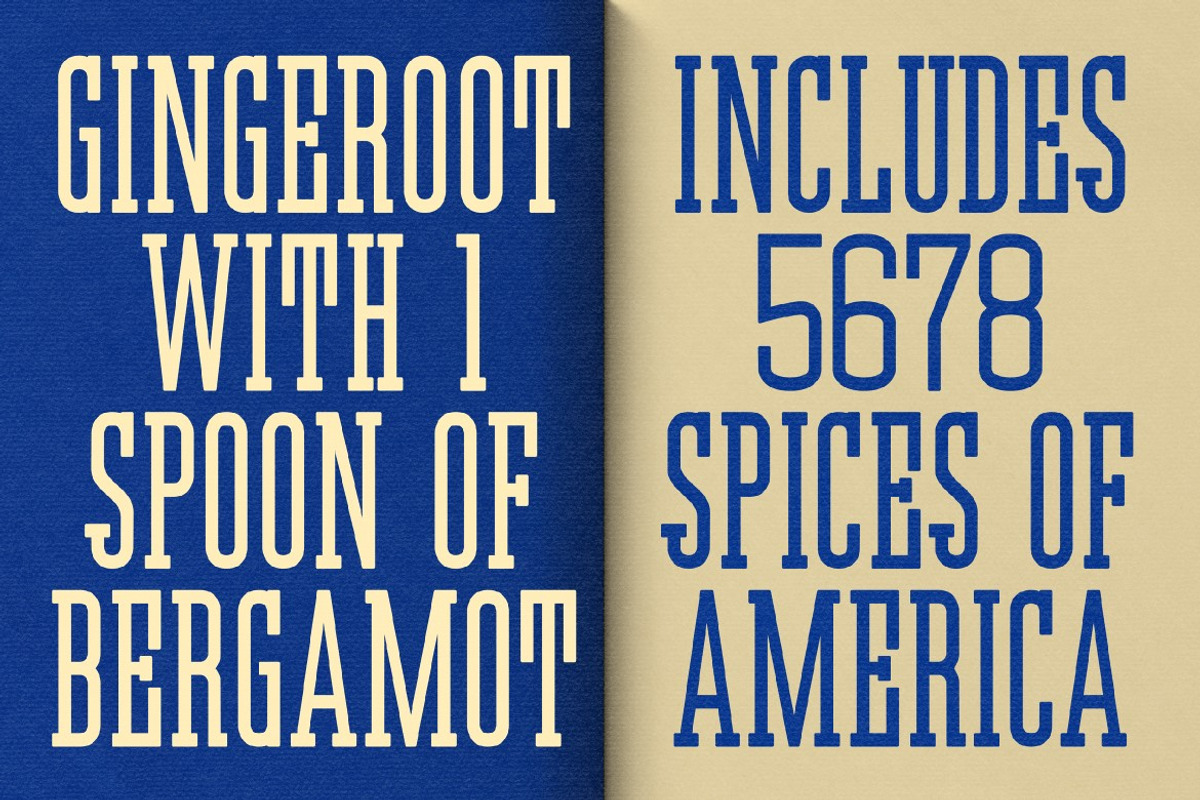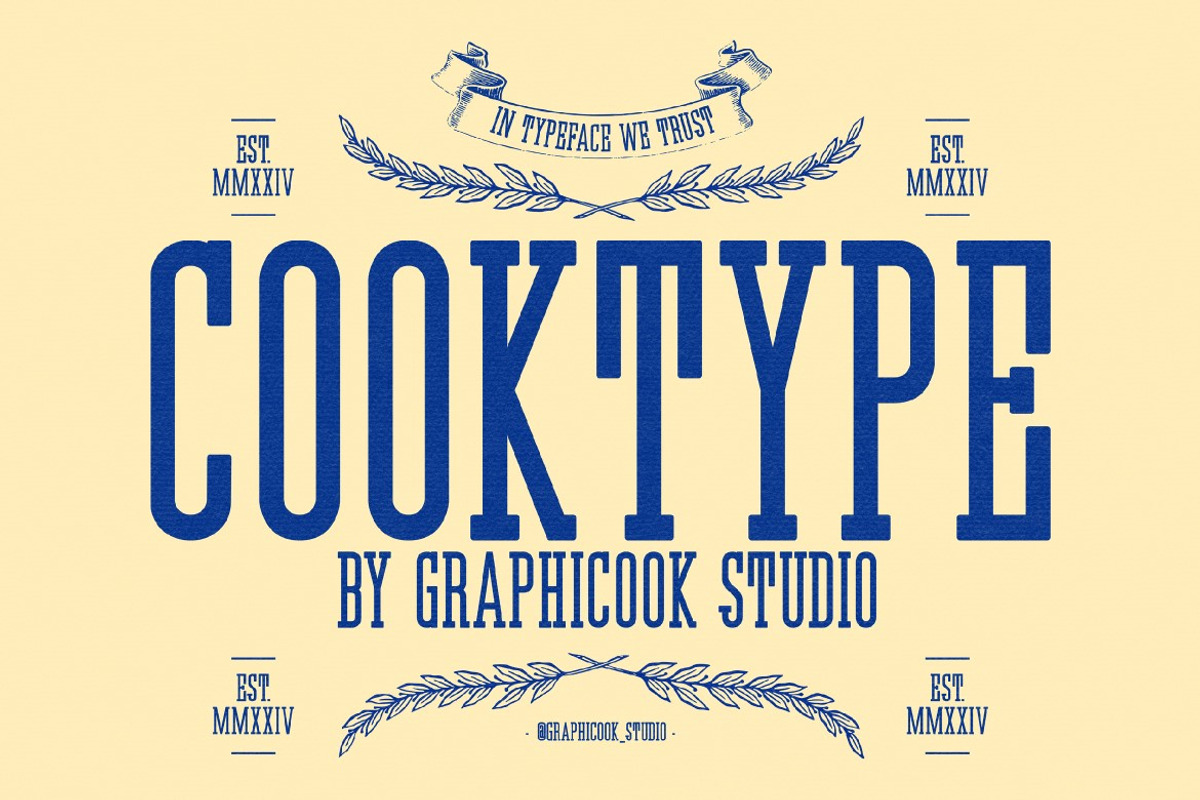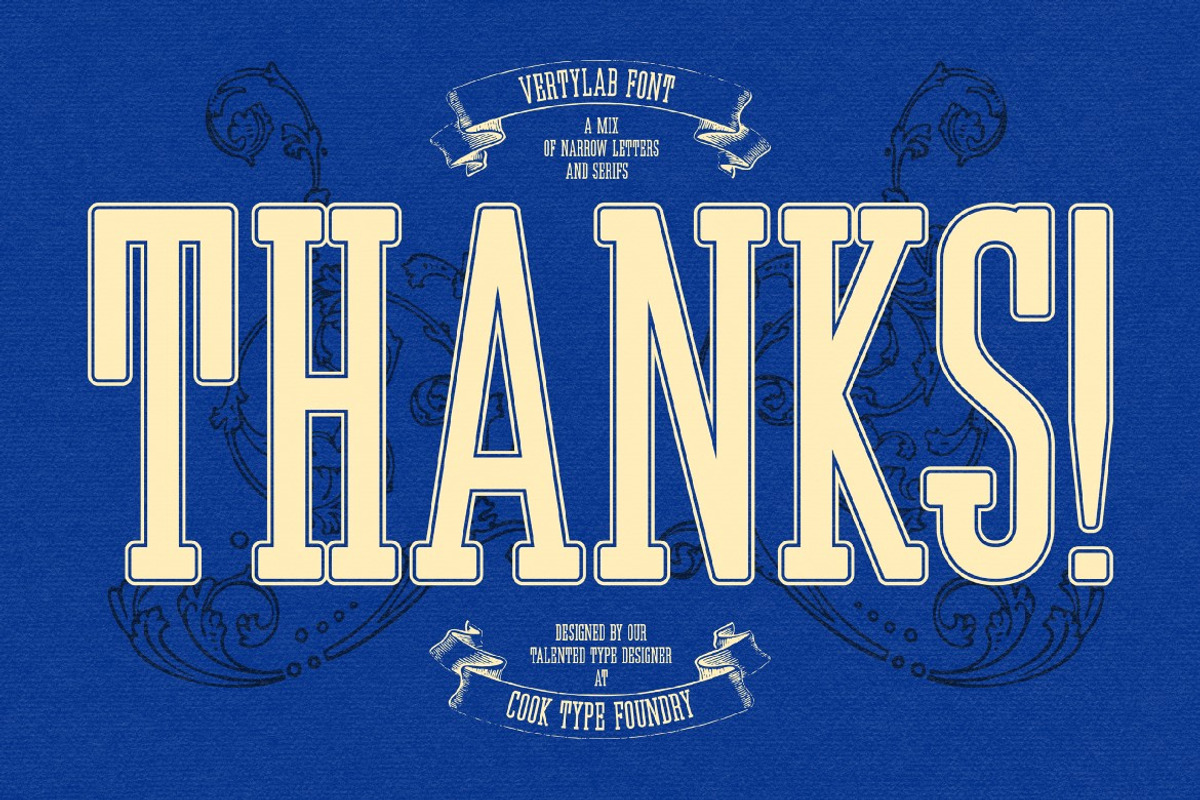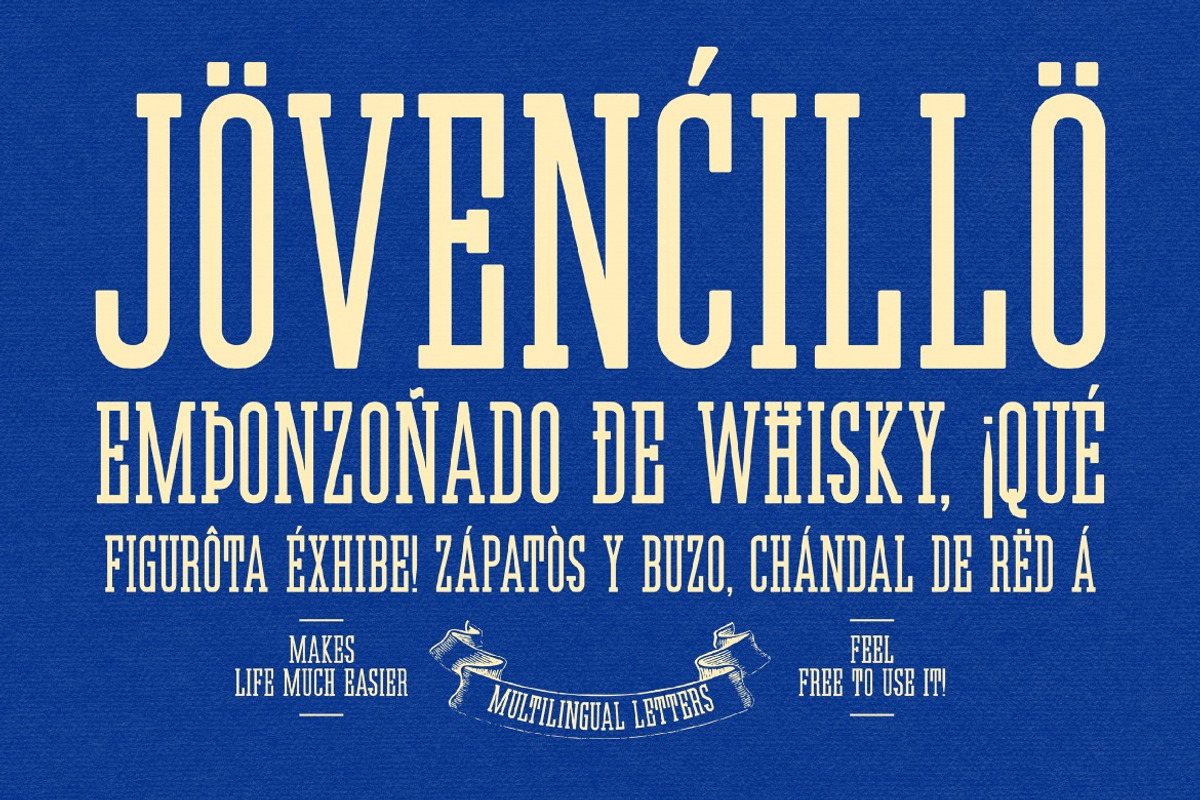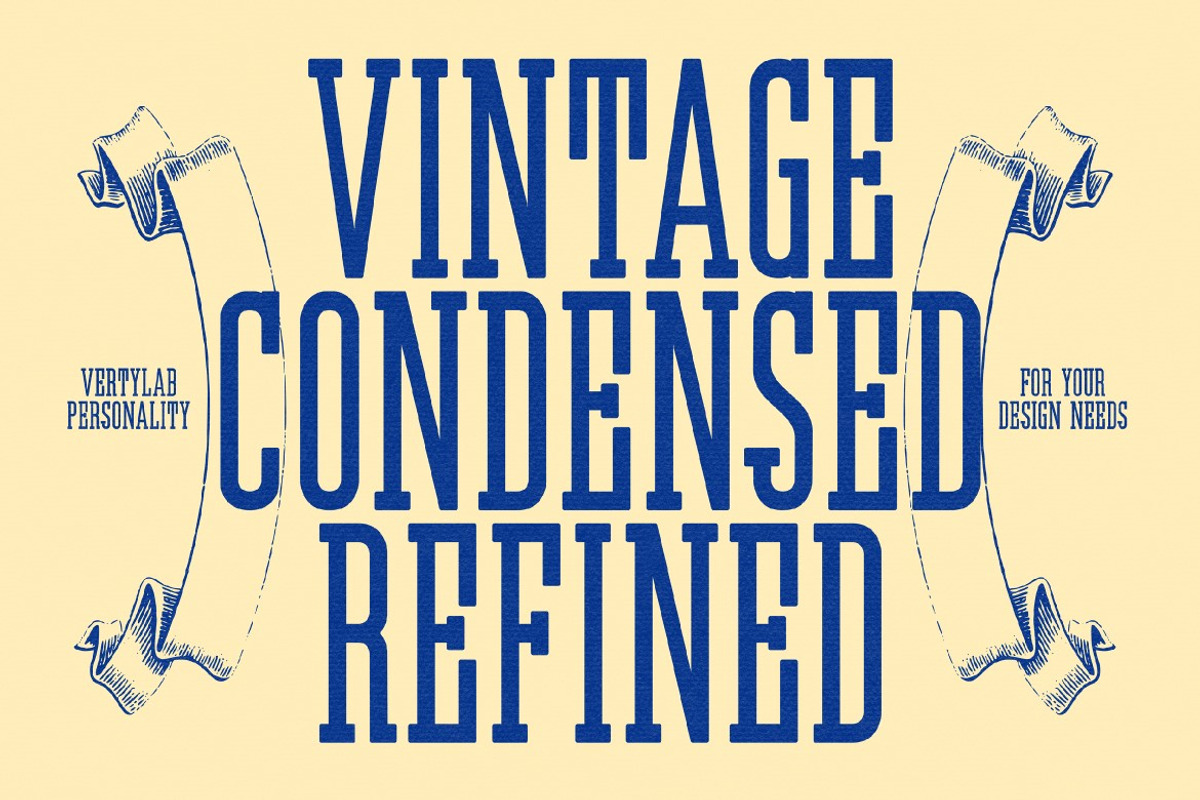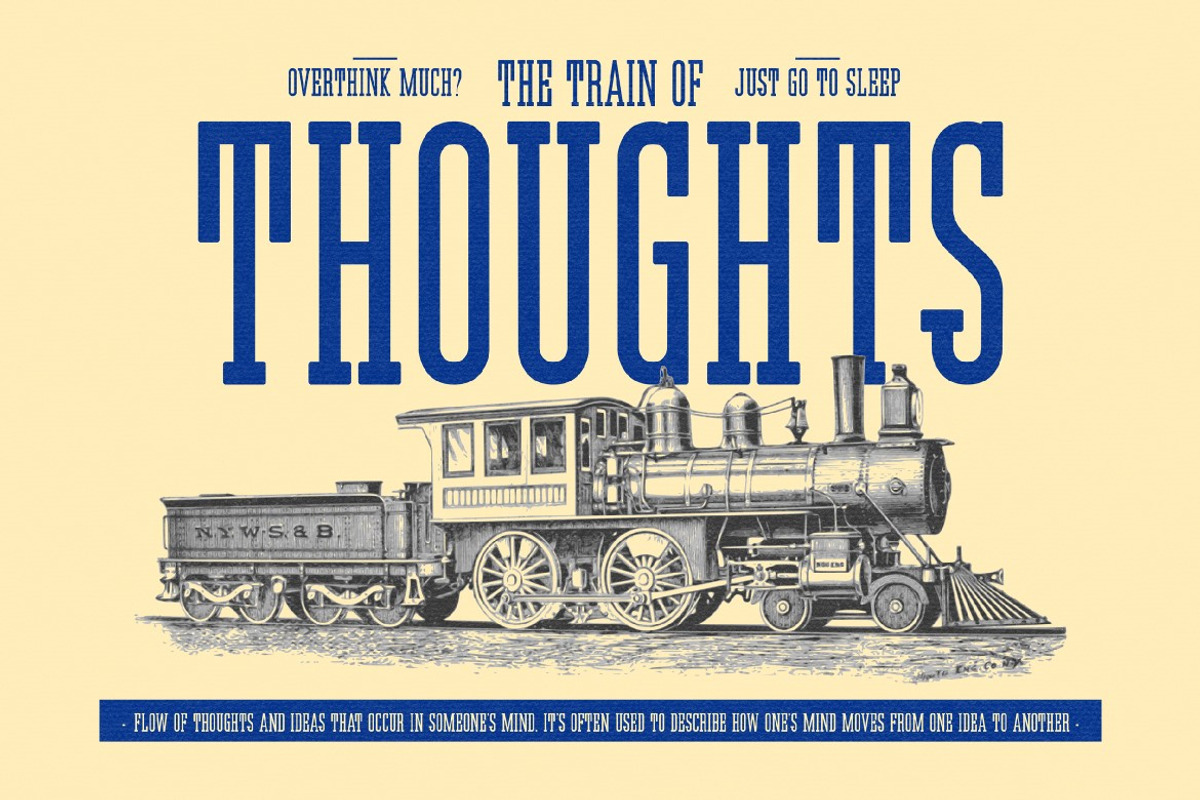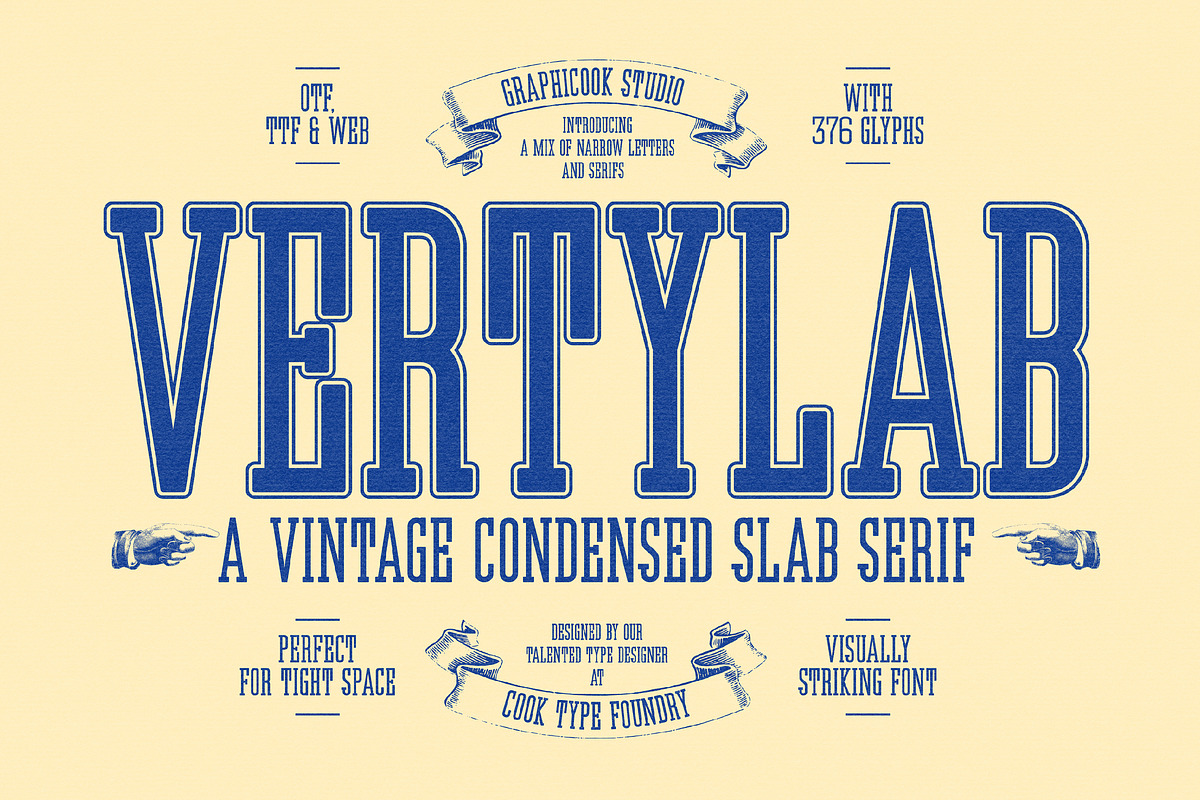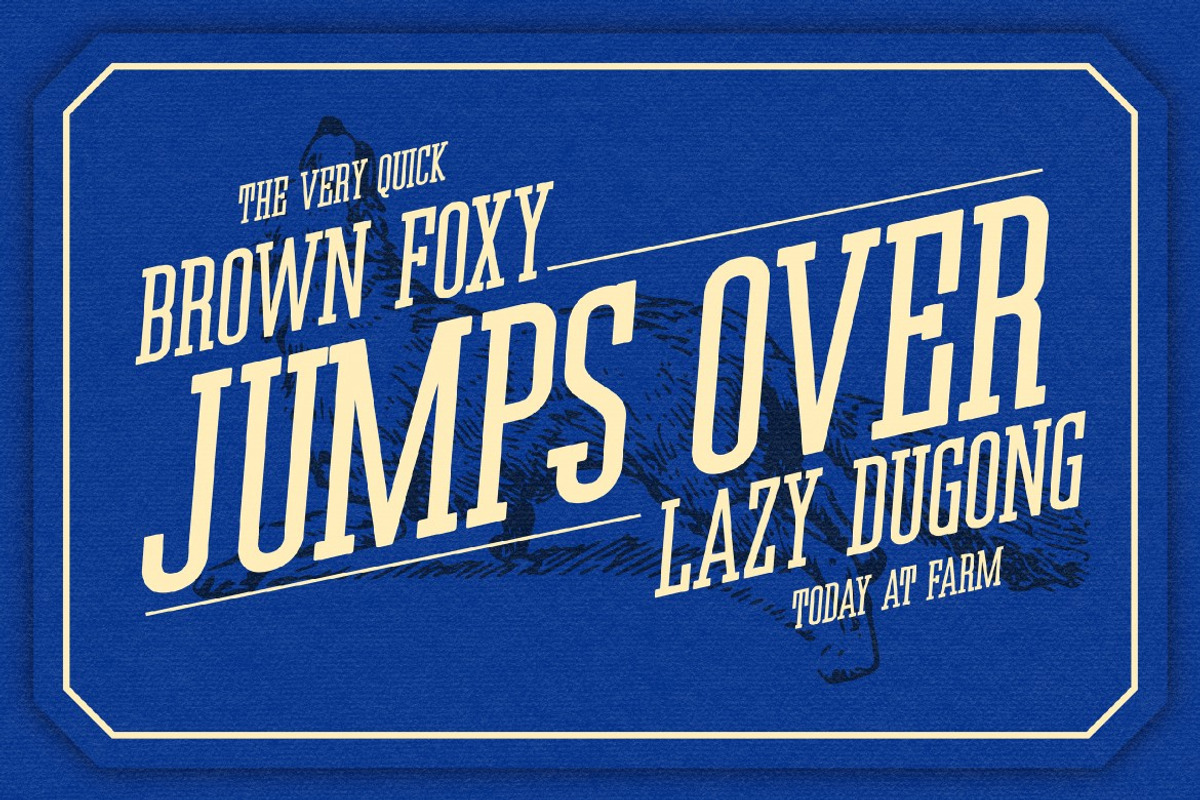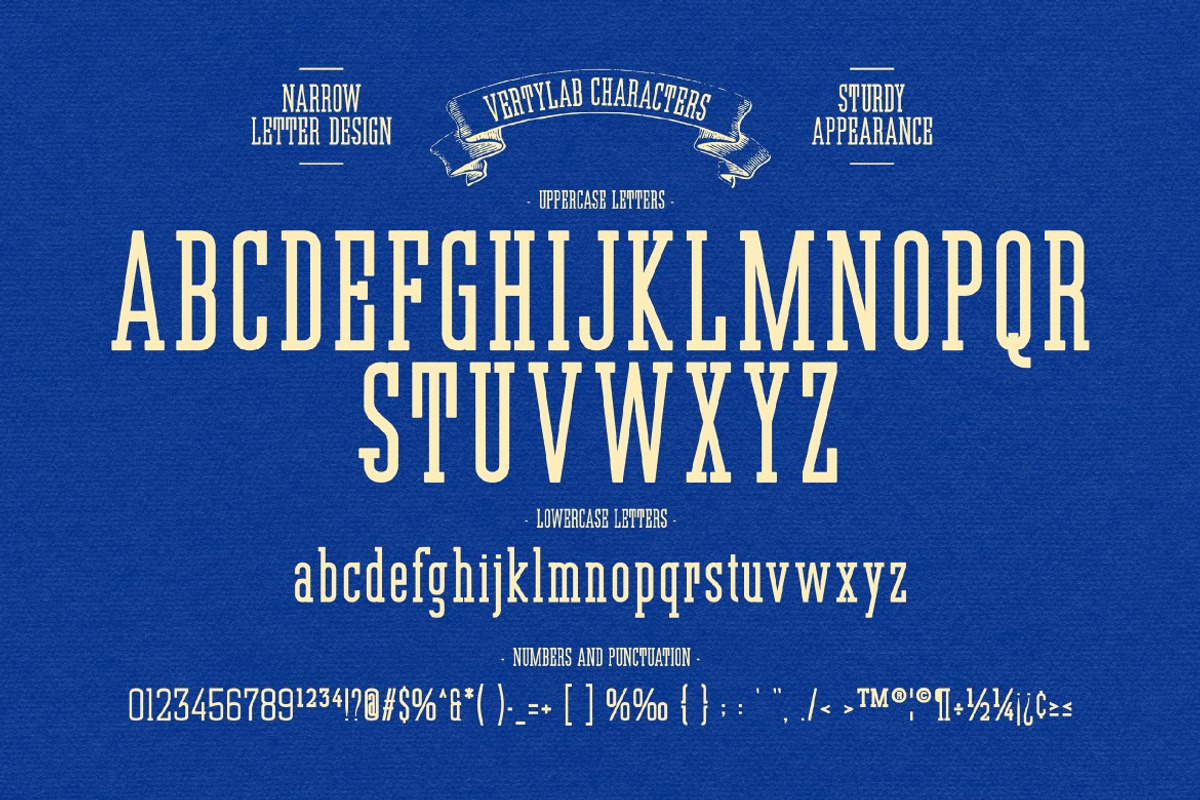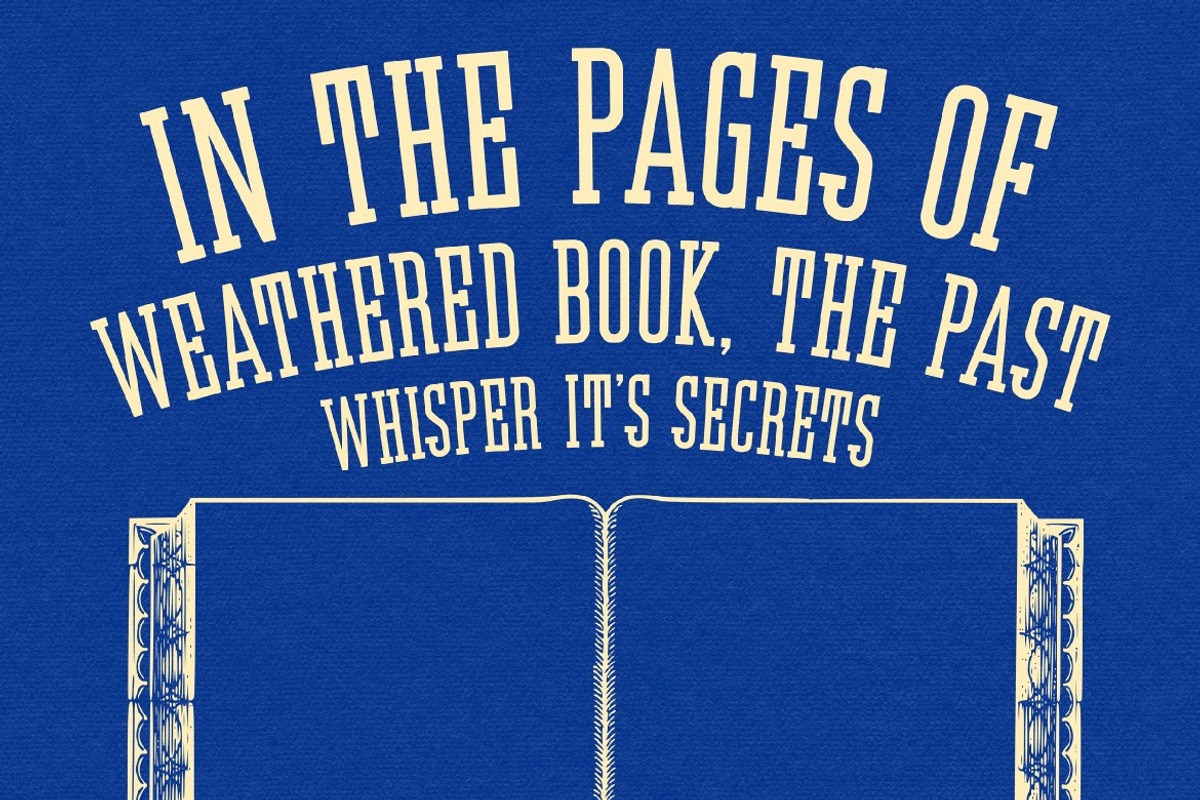
Vertylab
Vertylab is a condensed slab serif font with a vintage style mood. Suitable for posters, editorial work, packaging, and many others.
Vertylab is perfect for headlines, logotypes, magazines, packaging, quotes, movies, games, cover albums, book covers, and flyers, it's a perfect solution for creating eye-catching designs that stand out in any context.